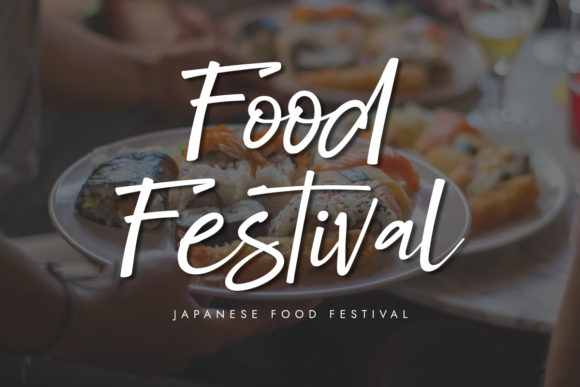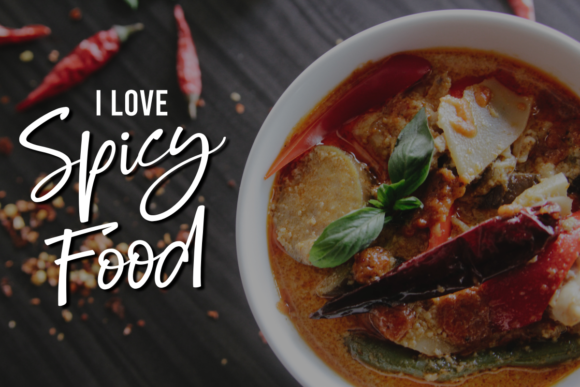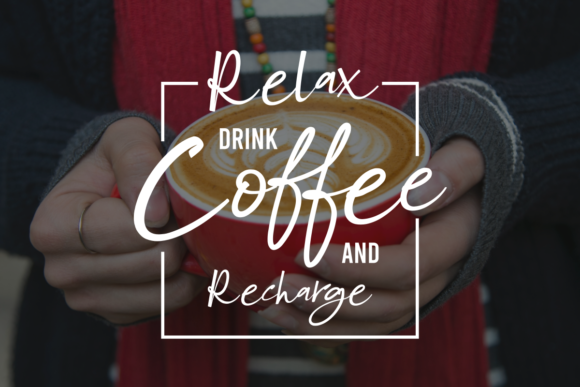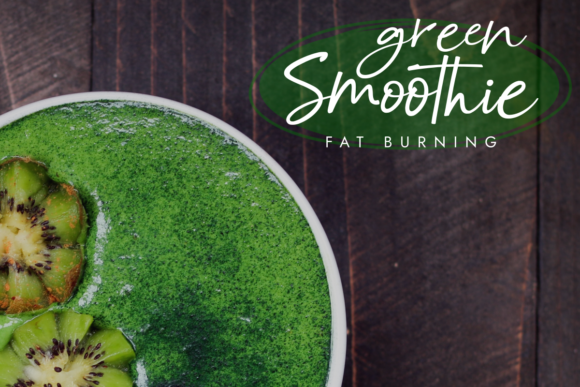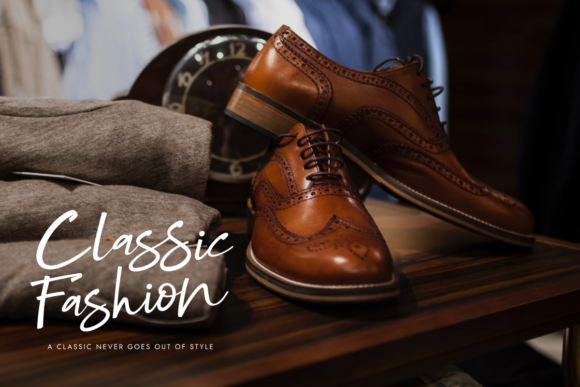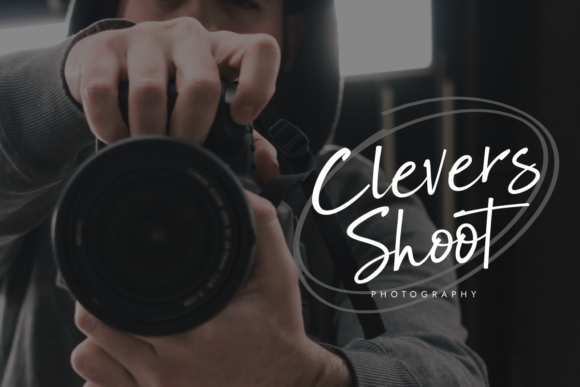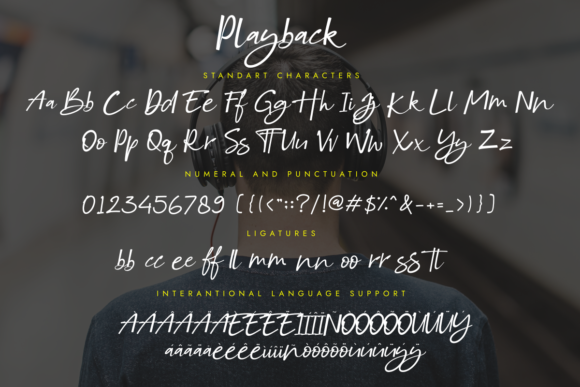
HomeScript FontsPlayback Font Script Fonts Playback Font FacebookXPinterestWhatsApp Playback Font Poster 2 Playback Font Poster 3 Playback Font Poster 4 Playback Font Poster 5 Playback Font Poster 6 Playback Font Poster 7 Playback Font Poster 8 About Playback Font Playback is a stunning script that features rich curves. Get inspired by its bold and charming look! DOWNLOAD ON CREATIVE FABRICAThis font is sold and delivered by Creative Fabrica. Font Canyon may earn a commission if you buy through this link. People also explored Dreamy Sakura Font Jolie Font Marthona Font Wistopher Signature Font Butter West Font Quicklu Font Rosmitta Font Guritno Font Sallowness Font 312 0 TagsPlayback Font Previous articleLamborgini FontNext articleRuko Font LEAVE A REPLY Cancel reply Comment: Please enter your comment! Name:* Please enter your name here Email:* You have entered an incorrect email address! Please enter your email address here Website: Save my name, email, and website in this browser for the next time I comment. Personal Use Free Kredit Personal Use Free Read more about this font Sea Gardens Personal Use Free Read more about this font Masha Song Personal Use Free Read more about this font BD AsciiMax Personal Use Free Read more about this font BLOG Free vs Paid Fonts: Why Investing in Premium Fonts Is Worth It Free vs Paid Fonts: Why Premium Fonts Are Worth It in 2025 The debate of free vs paid fonts continues in the design world. While... Transform Your Website: Elevate Your Typography with 7 Best Web Font Generators To increase your work productivity, choose the most readable fonts. Exploring Font Trends